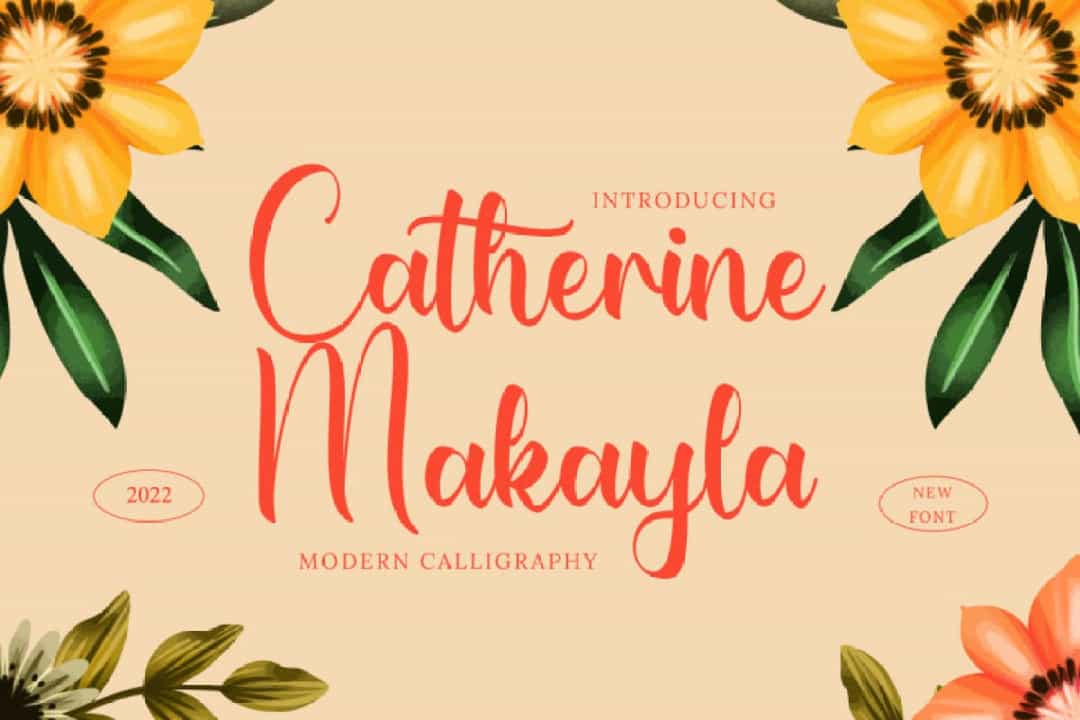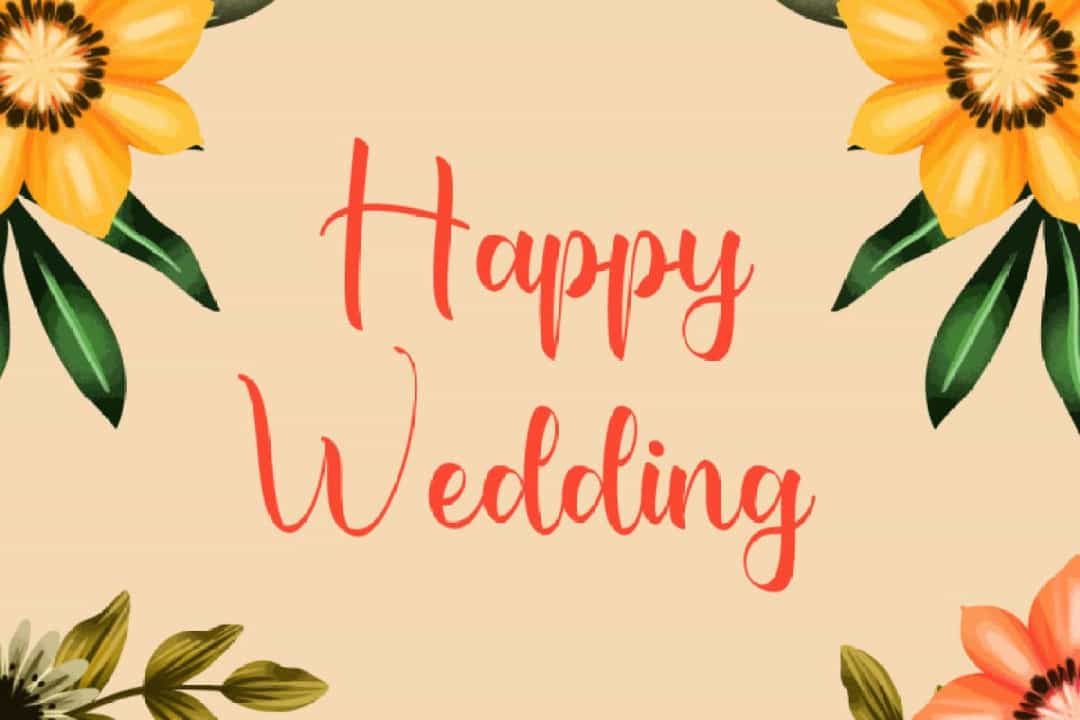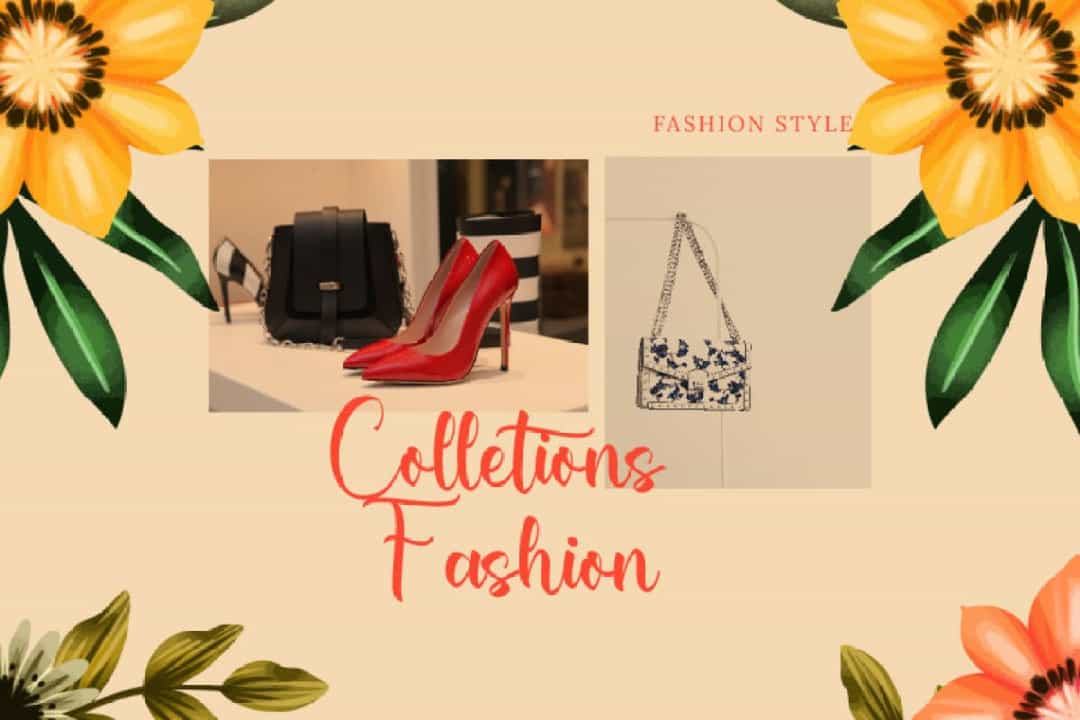
Discover Catherine Makayla Font, part of the Calligraphy Handwritten collection—a versatile and unique font perfect for adding a personal touch to your projects. Download it for free and enjoy crafting designs with style, from invitations to social media posts. This font is available exclusively for personal use, giving you the freedom to create without limits. Unlock your creativity with Catherine Makayla Font today!
Catherine Makayla Font is a soft elegant, flowing and graceful handwritten script font featuring beautiful characters with balanced strokes that fit with various styles and usage scenarios – such as logos, badges or insignia, packaging headlines, apparel headlines or posters, greeting cards or wedding invitations.